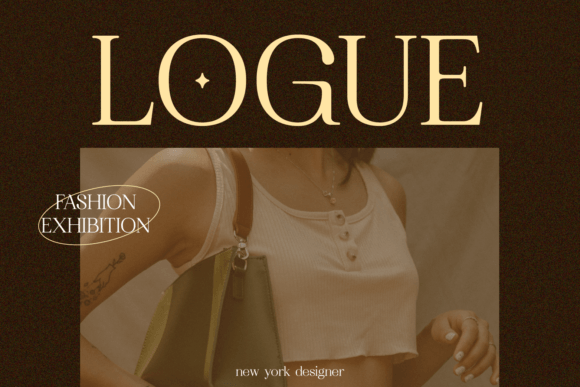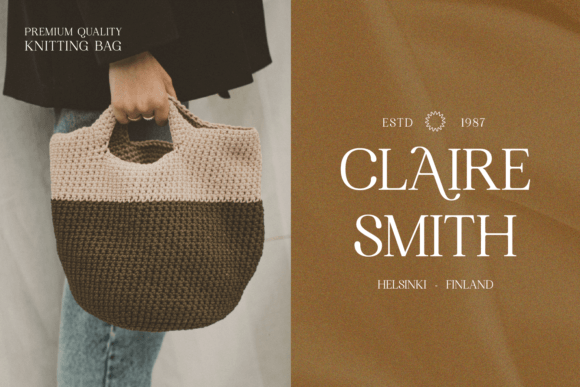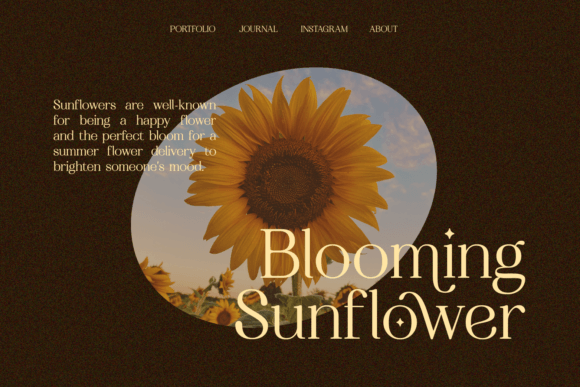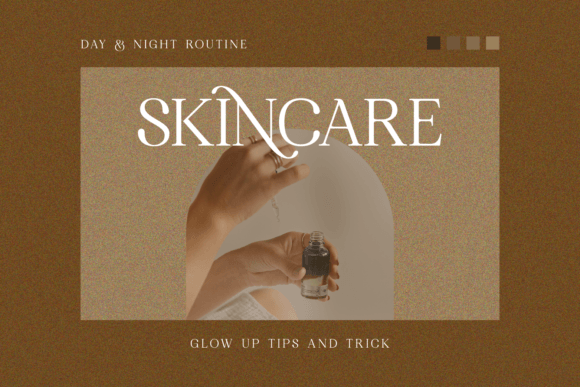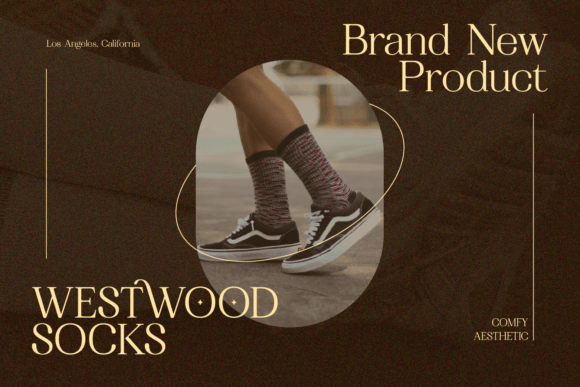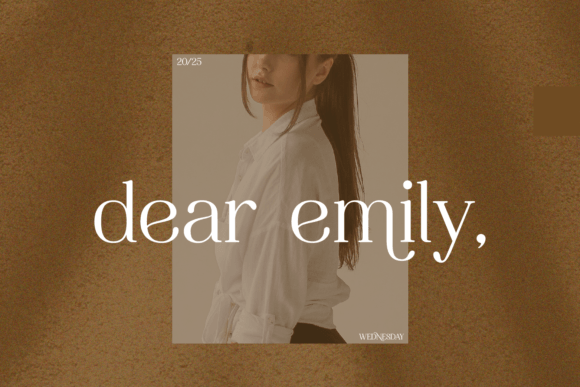
Discover the Timeless Elegance of Geraldine Font
Have you ever been stuck on a project, staring at a blank page, wondering what’s missing? That’s where the magic of typography comes in – a well-chosen font can be the game-changer you need to elevate your creation. For me, it’s the moment I discovered Geraldine Font that sparked a newfound excitement in my design journey.
Geraldine Font is a sophisticated serif font designed to add a touch of sophistication to any project. Whether you’re working on a novel, a magazine article, or a marketing brochure, this elegant font is sure to make a lasting impression. Its versatility and timeless design make it an invaluable asset for any designer’s library, and its potential to elevate any creation is undeniable.
Geraldine Font Key Features
- Font Family: A serif font designed for body text, ideal for publishing and editorial content.
- Font Size: Designed to be used at font sizes ranging from 10 to 14 points, with optimal readability at 12 points.
- Resolution: Suitable for use at high resolutions, such as 300 DPI or higher.
- Unique Characteristics: Geraldine features a traditional, classic look with subtle flair and elegance, making it suitable for formal and professional settings.
- Language Support: Supports a wide range of languages, including Latin-based languages and some Cyrillic languages.
Geraldine Font Review
Overall, I found Geraldine Font to be a solid choice for body text and titles. ✨ It’s elegant, refined, and suitable for a wide range of applications.
The font’s most notable feature is its legibility, making it an excellent choice for reading-heavy content. The text appears crisp and clear, even at smaller font sizes. ✨ Additionally, the font’s design is timeless, avoiding the risk of becoming outdated in the near future.
However, I did encounter some limitations during my testing. ⚠️ The font’s weight system can be inconsistent, with some weights feeling slightly lighter or heavier than expected. This may lead to visual inconsistencies in certain layouts.
Another potential issue is the font’s limited language support. ⚠️ While it covers a decent range of languages, it’s not ideal for global projects that require extensive language support.
Here are some key pros and cons:
- ✨ Elegant and refined design
- ✨ Excellent legibility
- ✨ Timeless design
- ⚠️ Inconsistent weight system
- ⚠️ Limited language support
Overall, I’d recommend Geraldine Font for projects that prioritize elegance and legibility, but may not be the best choice for projects with complex language requirements or strict weight consistency.
To get the most out of Geraldine font, use it for:
1. Creating elegant and sophisticated designs.
2. Adding a touch of vintage charm to your designs.
3. Creating wedding invitations, menus, and other special occasion materials.
Alternatives to Geraldine Font
Playfair Display is a luxurious, elegant font ideal for titles and headings. It features high contrast and ornate details. When to use: High-end branding, luxury products, or special occasions. It compares to Geraldine Font as it has a more classic, traditional feel, whereas Geraldine Font is more modern and minimalist.
Great Vibes is a modern, elegant font that is perfect for headings and titles. It features a high level of sophistication and is highly legible. When to use: Fashion, beauty, or lifestyle brands that want a modern and stylish look. It compares to Geraldine Font as it is more modern and has a softer feel, whereas Geraldine Font is more minimalist and has a bold feel.
Carolyna Pro is a modern, elegant font that is highly versatile and suitable for a wide range of applications. It features a high level of sophistication and is highly legible. When to use: Fashion, beauty, or lifestyle brands that want a modern and stylish look. It compares to Geraldine Font as it has a similar modern feel, but is more elegant and refined.